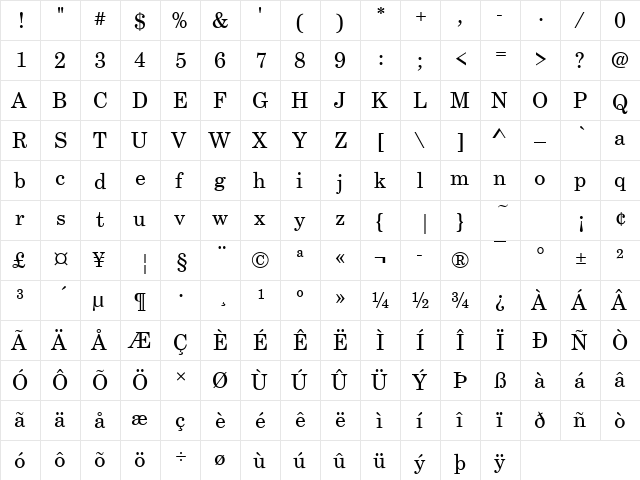
CenturySchT Regular
Design Context for CenturySchT Typeface
CenturySchT is a composed and adaptable typeface that performs quietly and consistently across a wide range of design contexts.